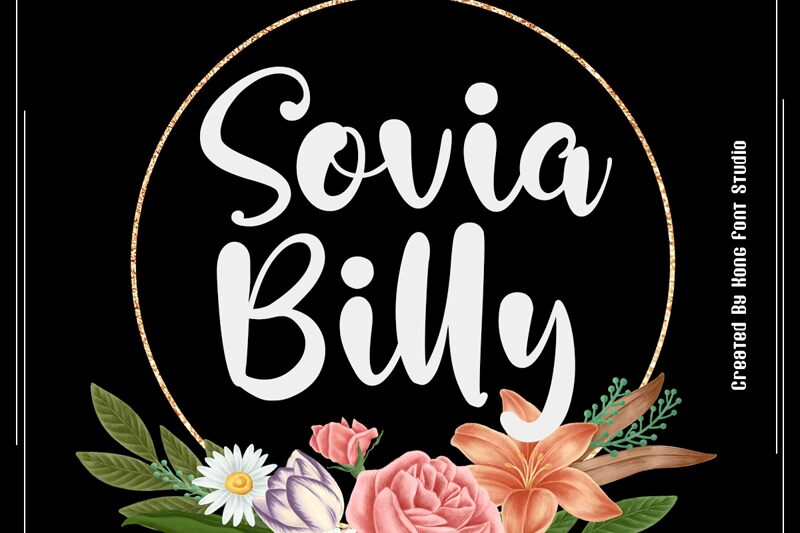
Sovia Billy
Sovia Billy by Kong Font is a charming semi-bold font that boasts a smooth brush style. Perfect for adding a touch of whimsy to any project, this font is sure to catch the eye of anyone who sees it. Whether you're designing invitations, creating social media graphics, or crafting a logo for your business, Sovia Billy is an excellent choice. Its cute and playful vibe makes it suitable for children's books, greeting cards, and even cosmetic branding. With Sovia Billy in your toolkit, you'll be able to add a touch of sweetness to any design project you take on!